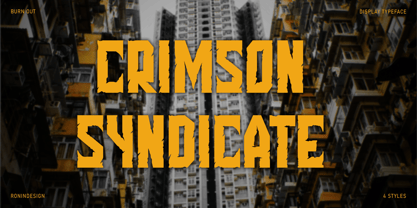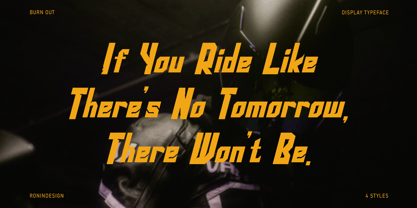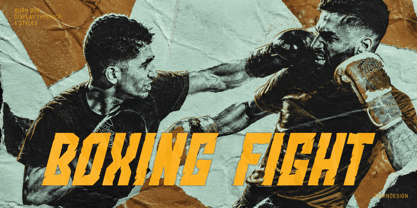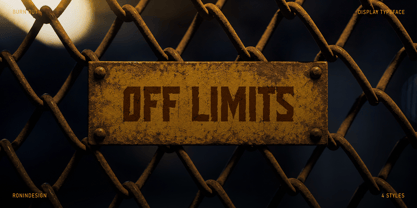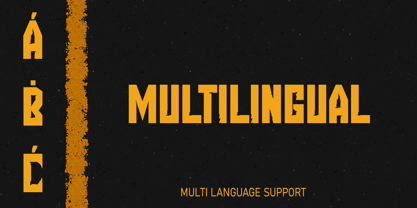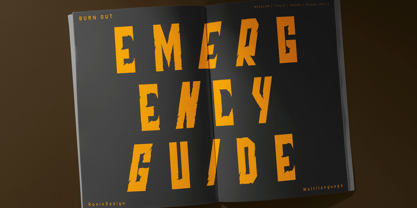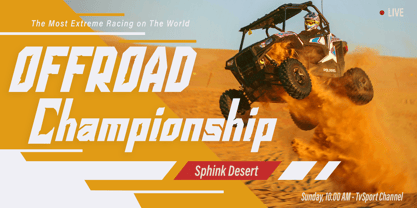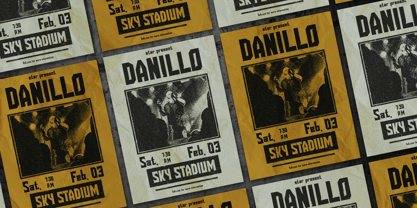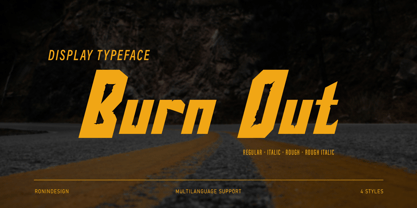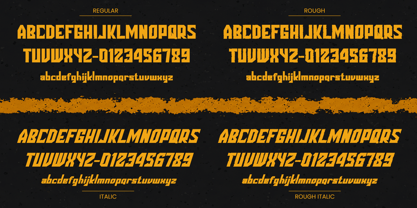
Burn Out
by Ronin Design
The Burn Out Font Family was designed by RoninDesign and published by Ronin Design. Burn Out contains 4 styles and family package options. More about this family
Burn Out is a bold display typeface built to capture power and raw energy. Featuring sharp forms, aggressive proportions, and a rugged texture, Burn Out deivers a high-impact presence that instantly commands attention.
Designed for projects that demand a fast and fearless attitude, Burn Out is perfect for racing brands, automotive graphics, esports identities, gaming titles, action posters, sports apparel, merchandise, and bold headline designs.
The family includes four styles — Regular, Italic, Rough, and Rough Italic — giving you the flexibility to switch between clean performance aesthetics and a more aggressive look.
Features :
• Burn Out regular, italic, rough and rough italic
• Ton of glyphs
• Numeric and punctuation
• Multilingual accent